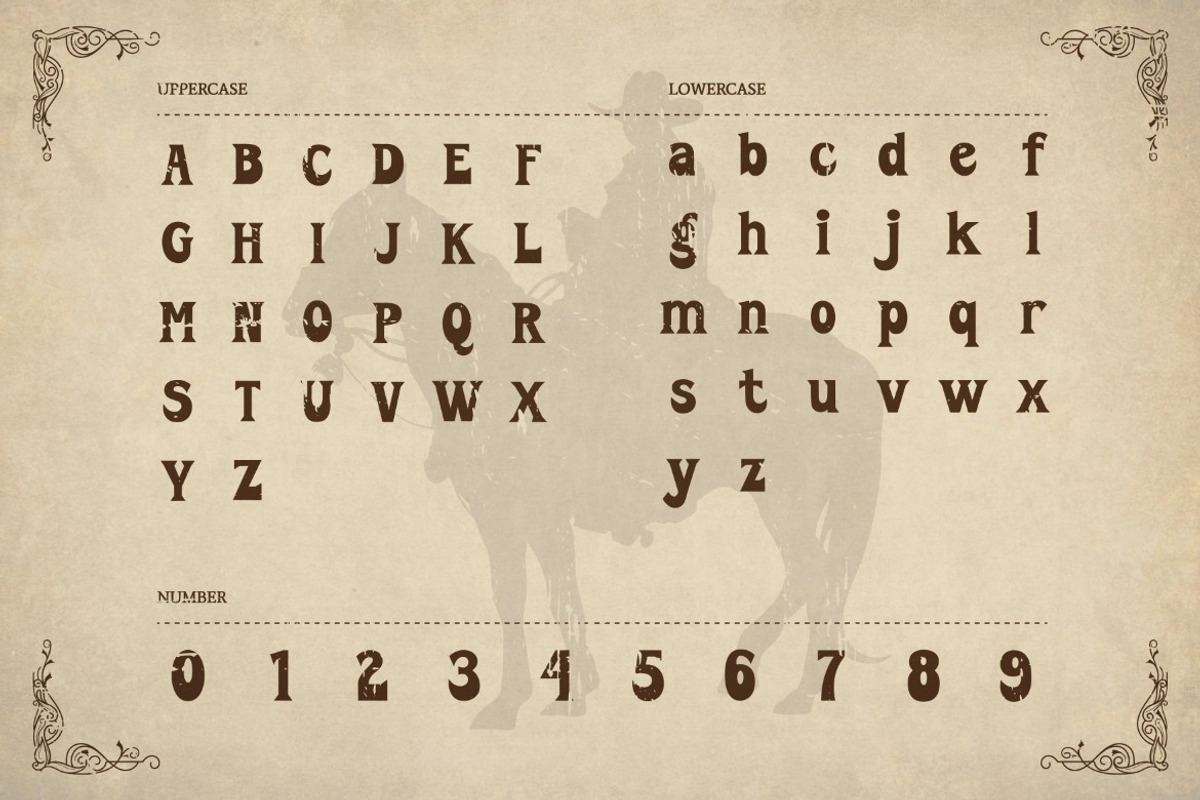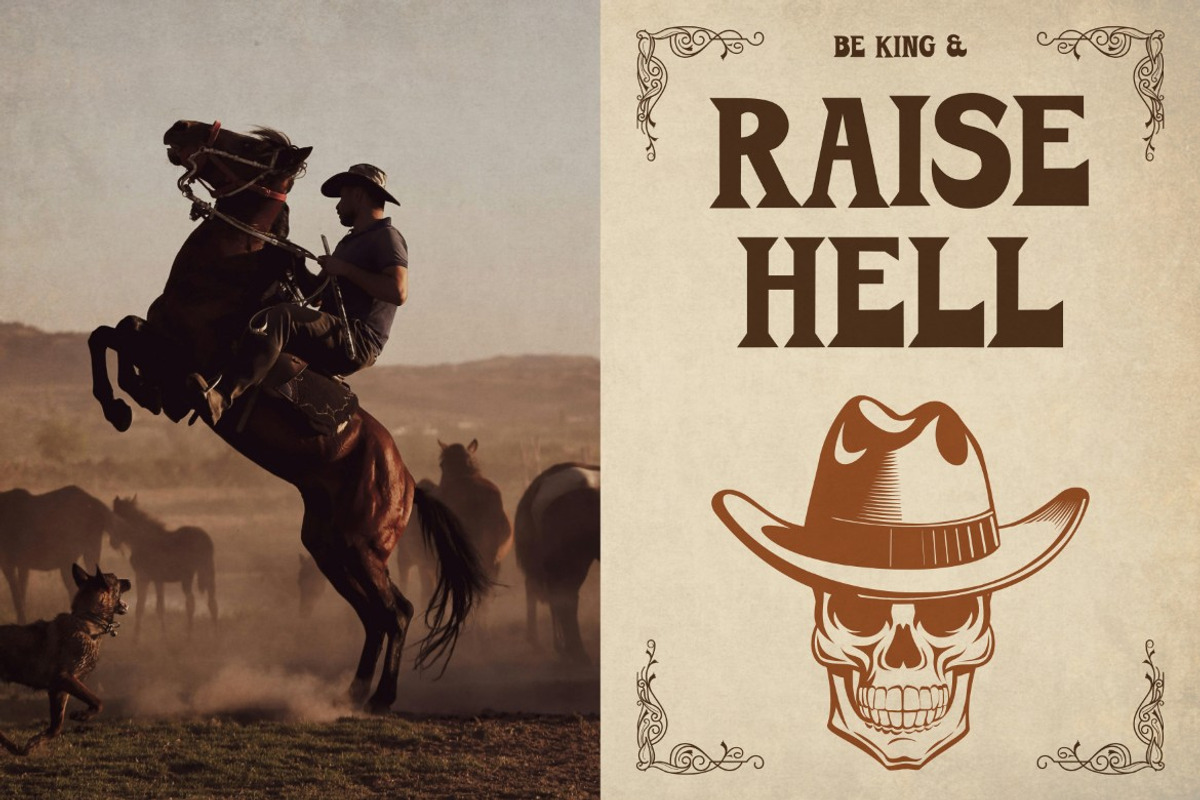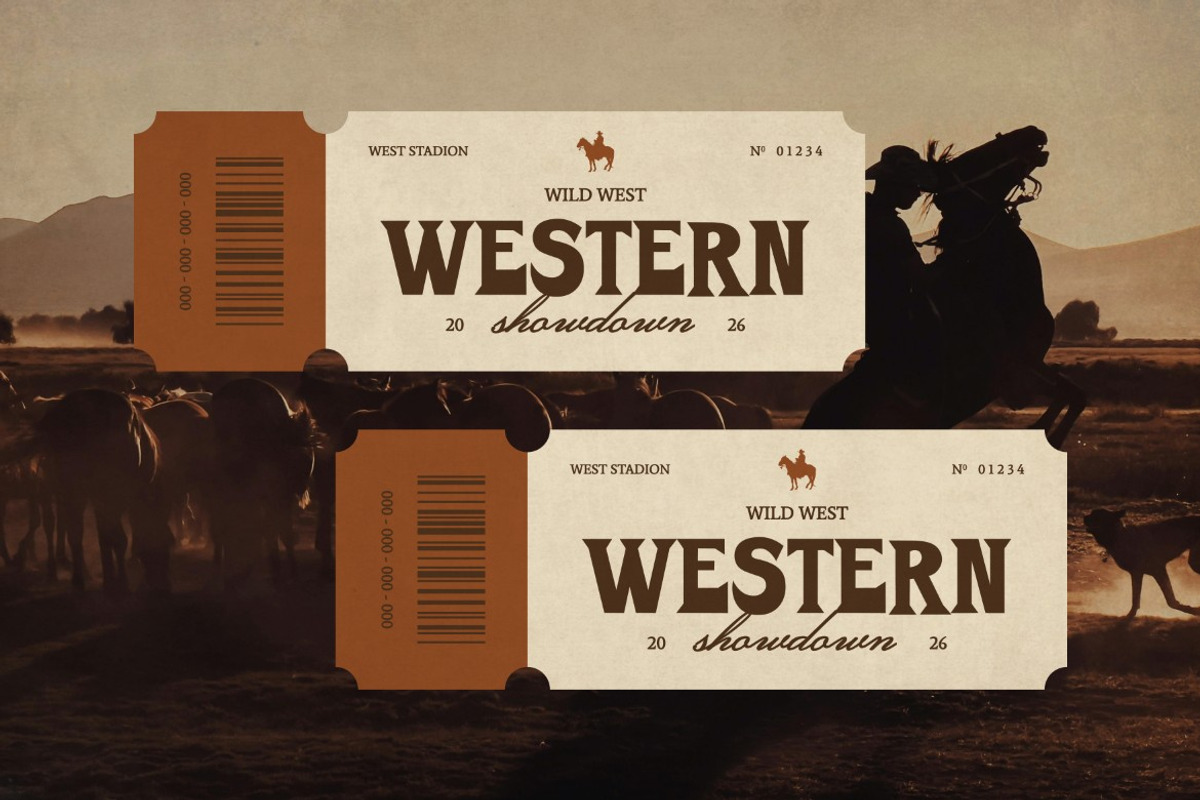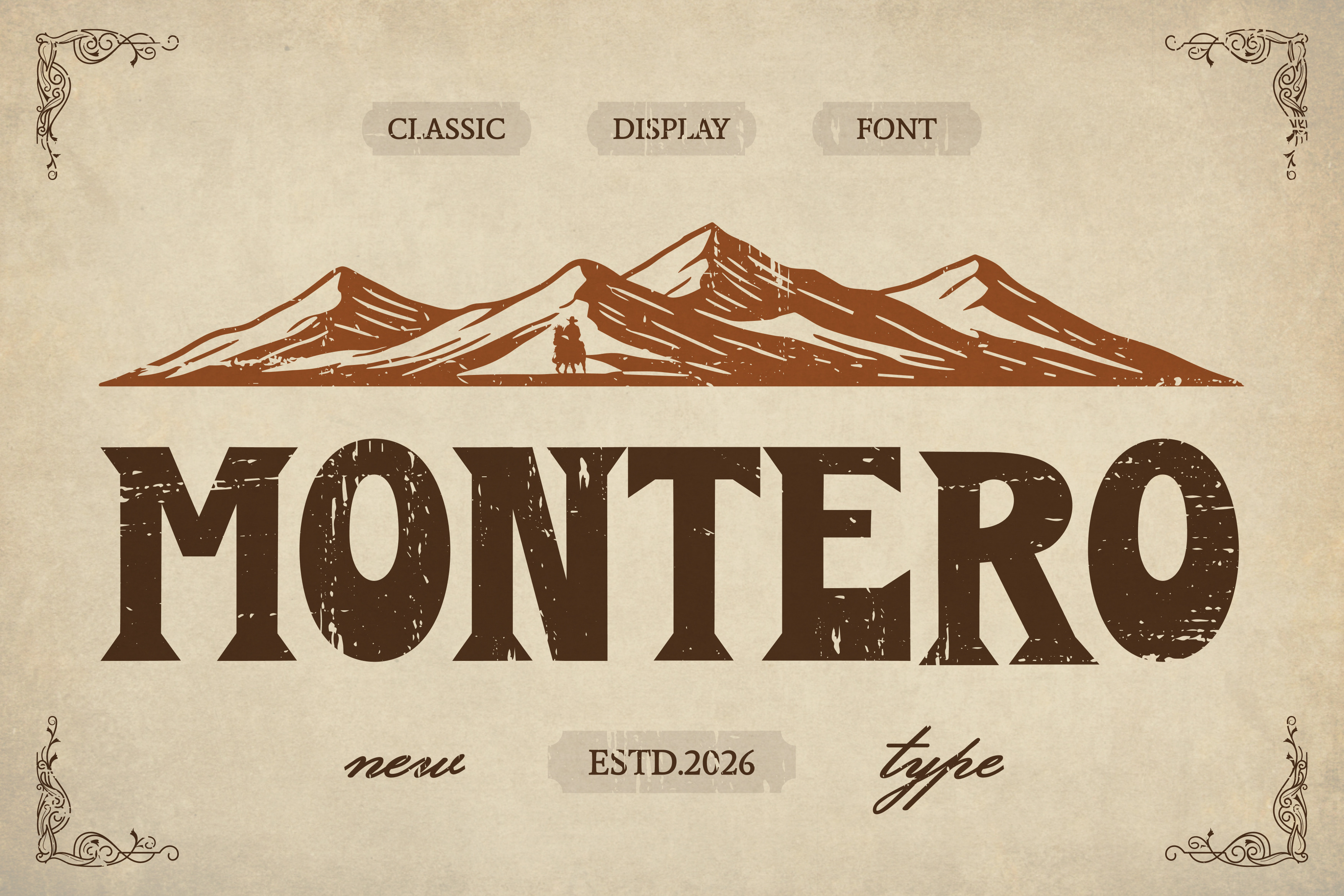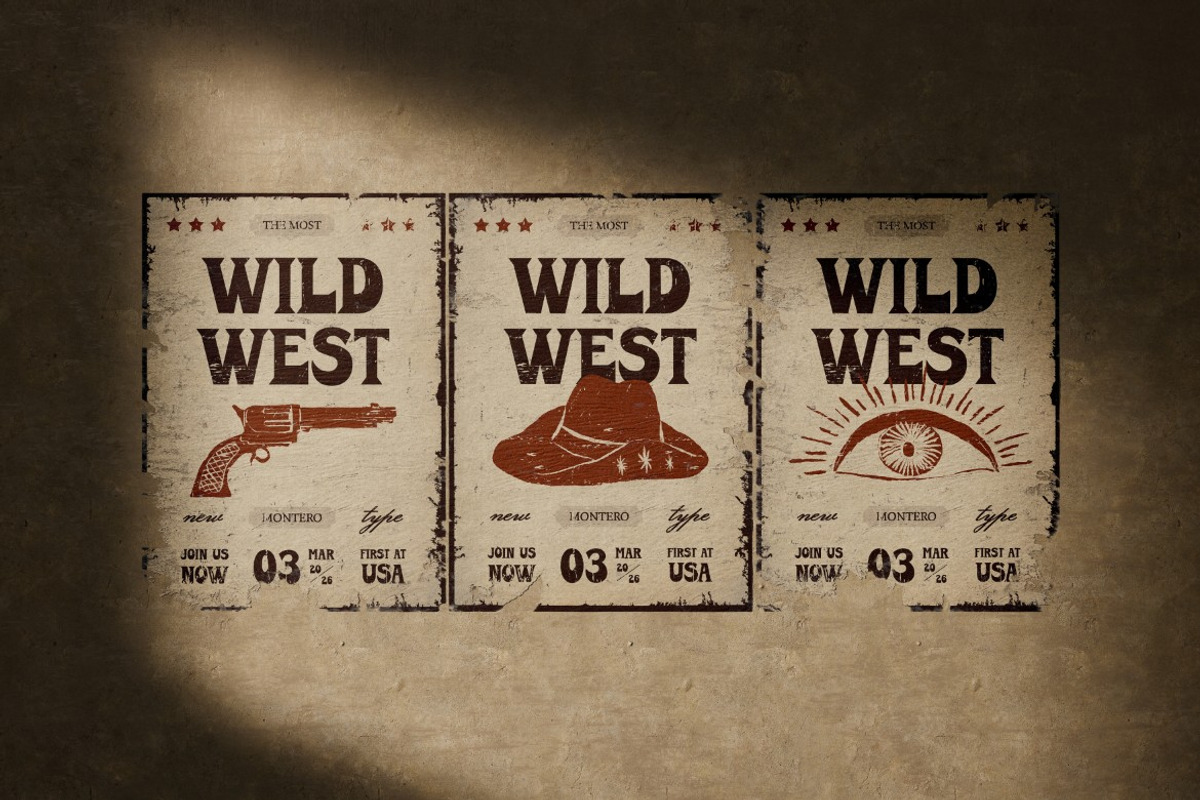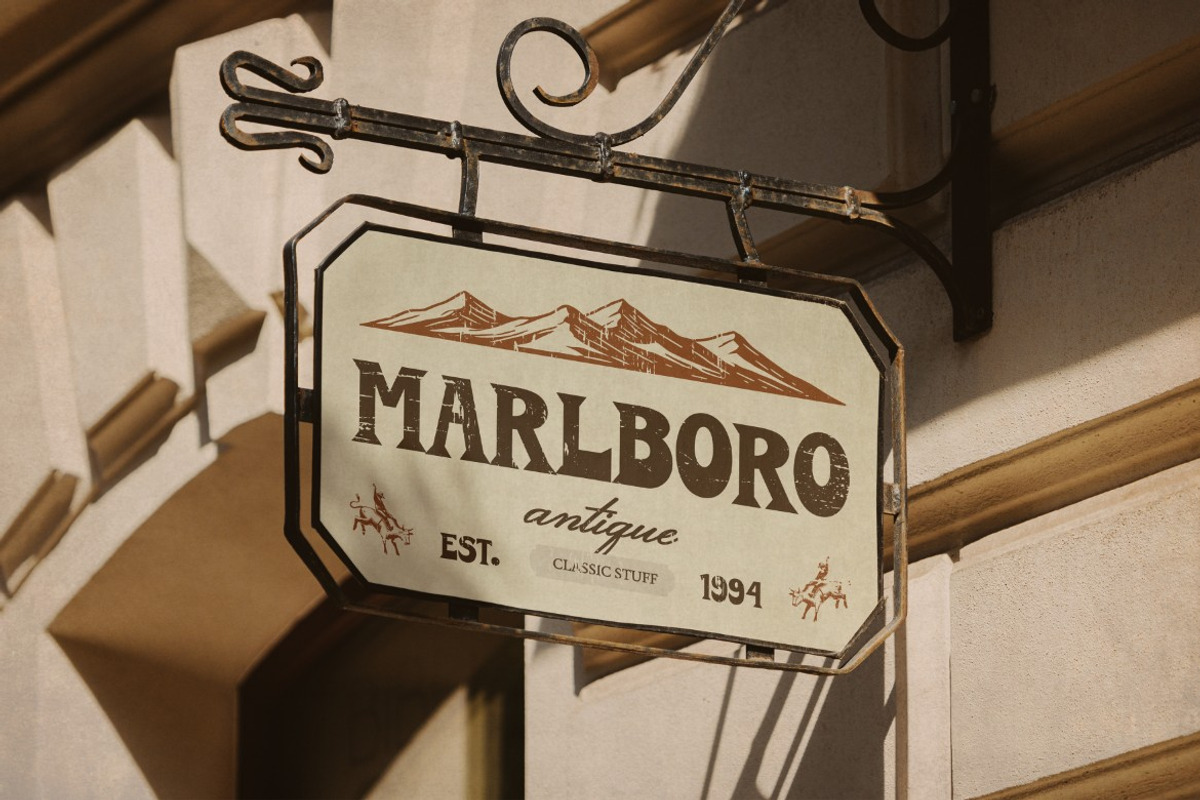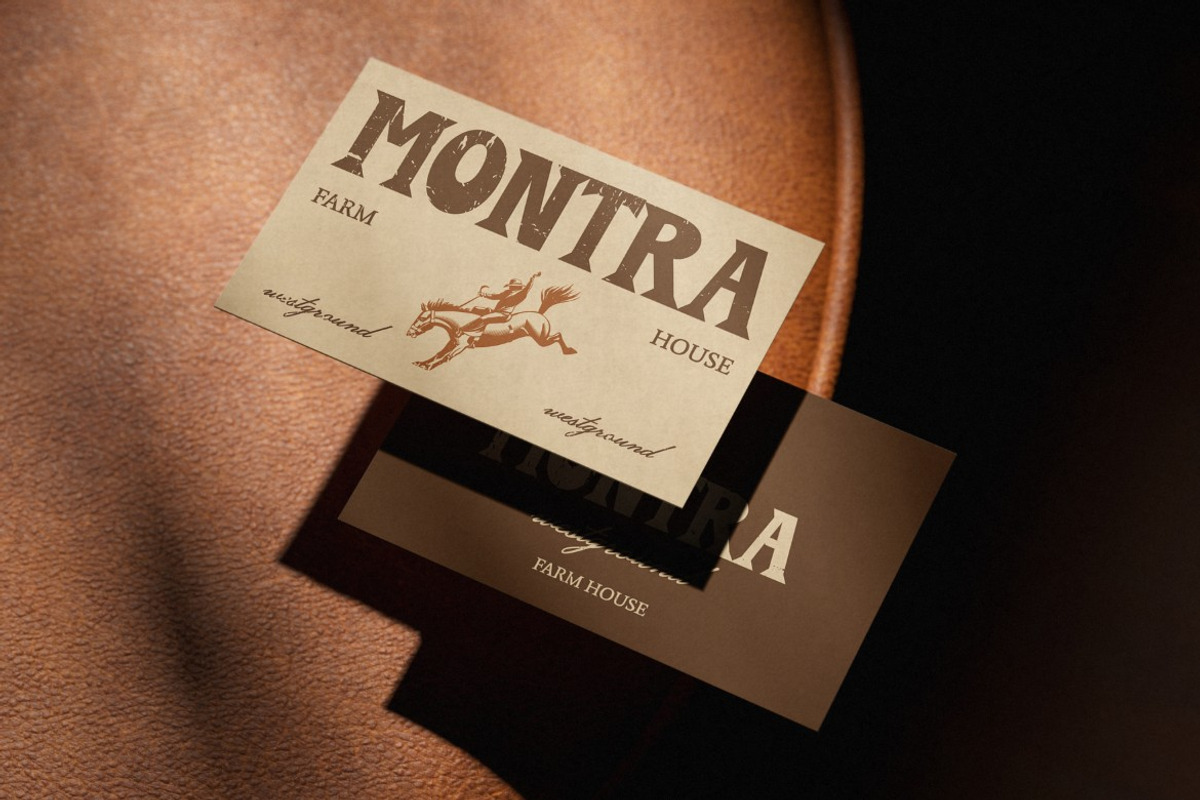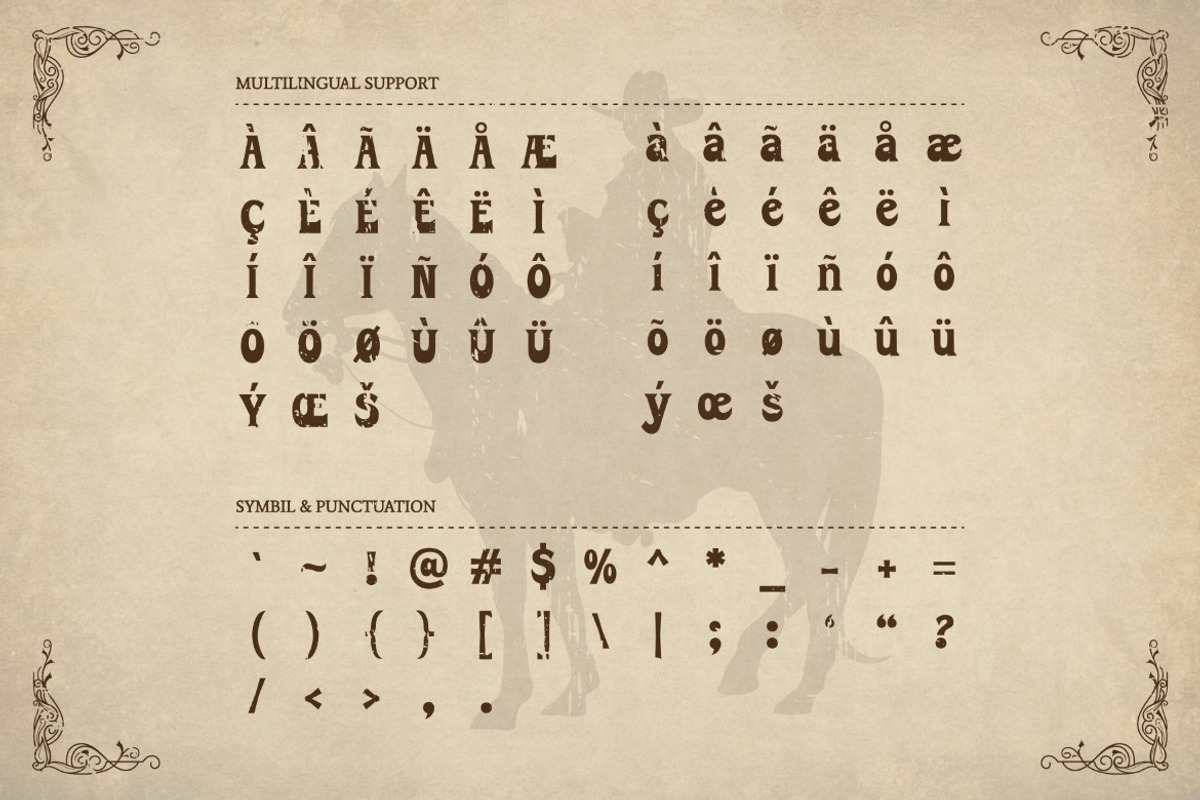
Montero – Bold Vintage Font
Montero is a bold Western display font inspired by vintage cowboy signage and rustic American aesthetics. With strong serif shapes, distressed textures, and a classic frontier character, it is perfect for logos, posters, branding, packaging, whiskey labels, and retro-themed designs seeking authentic Western charm and standout typographic impact.